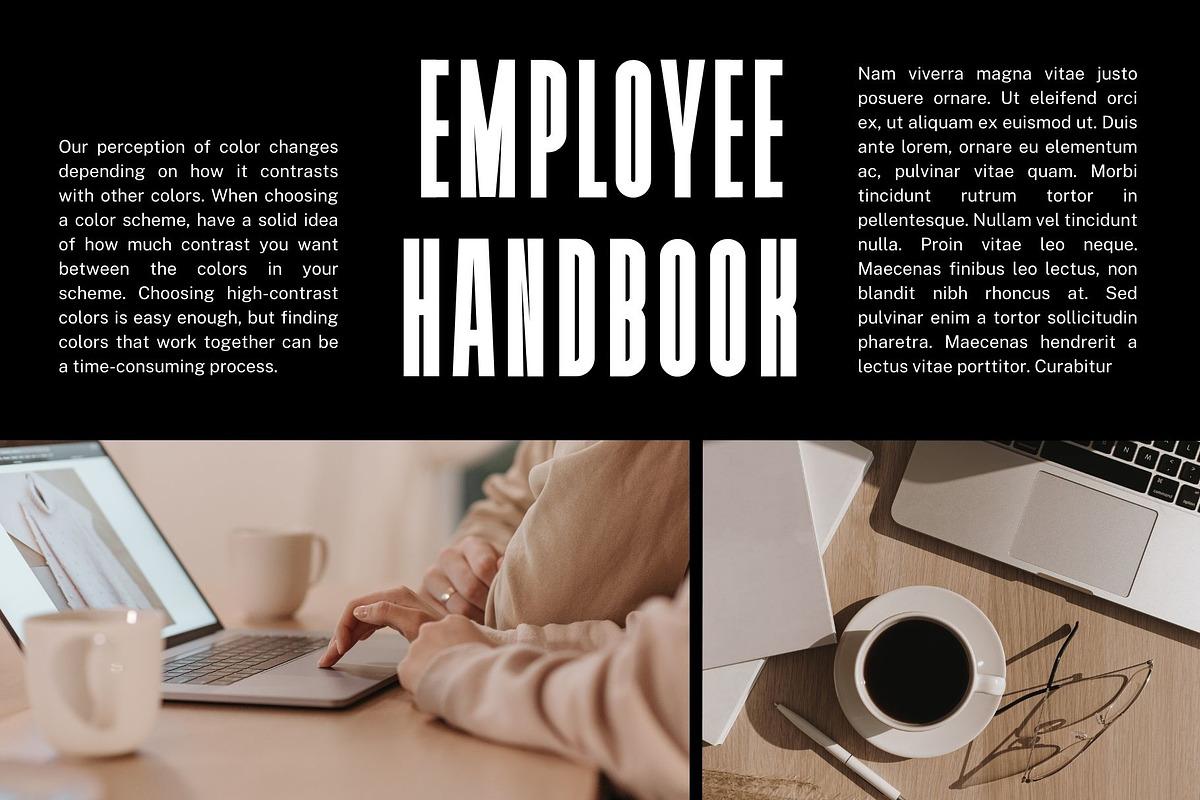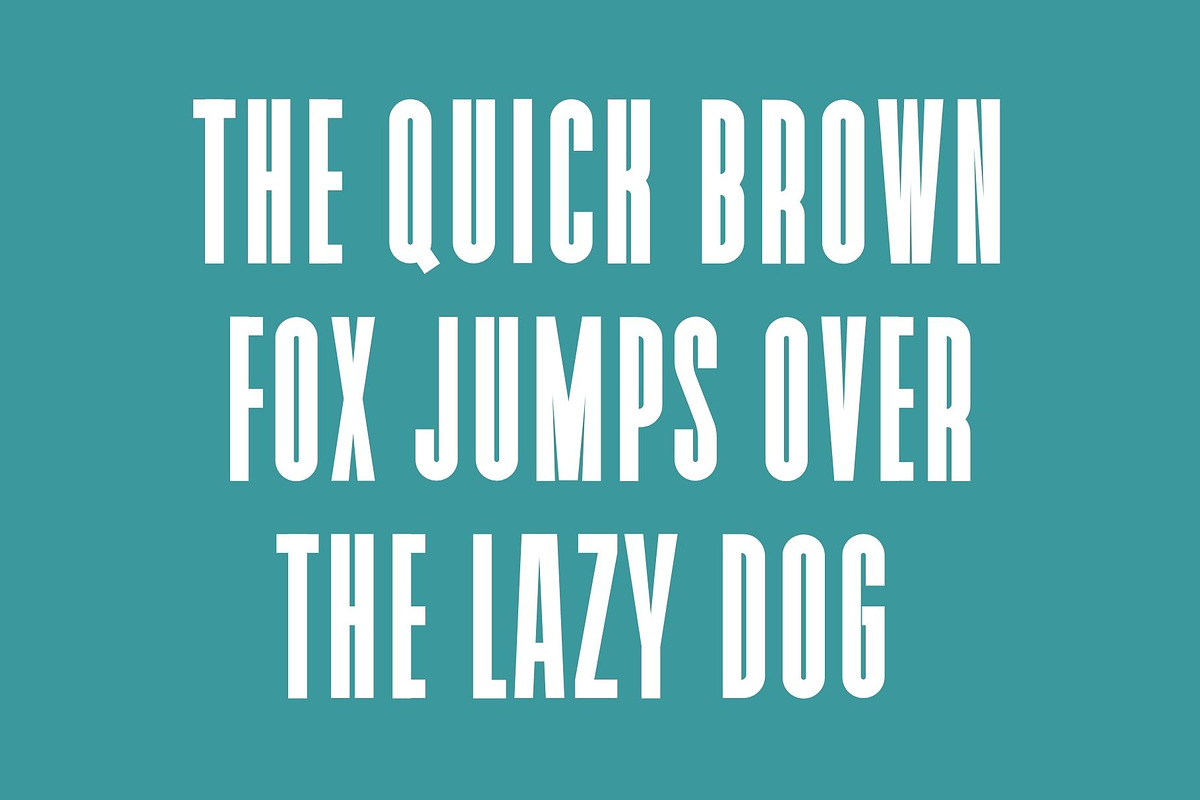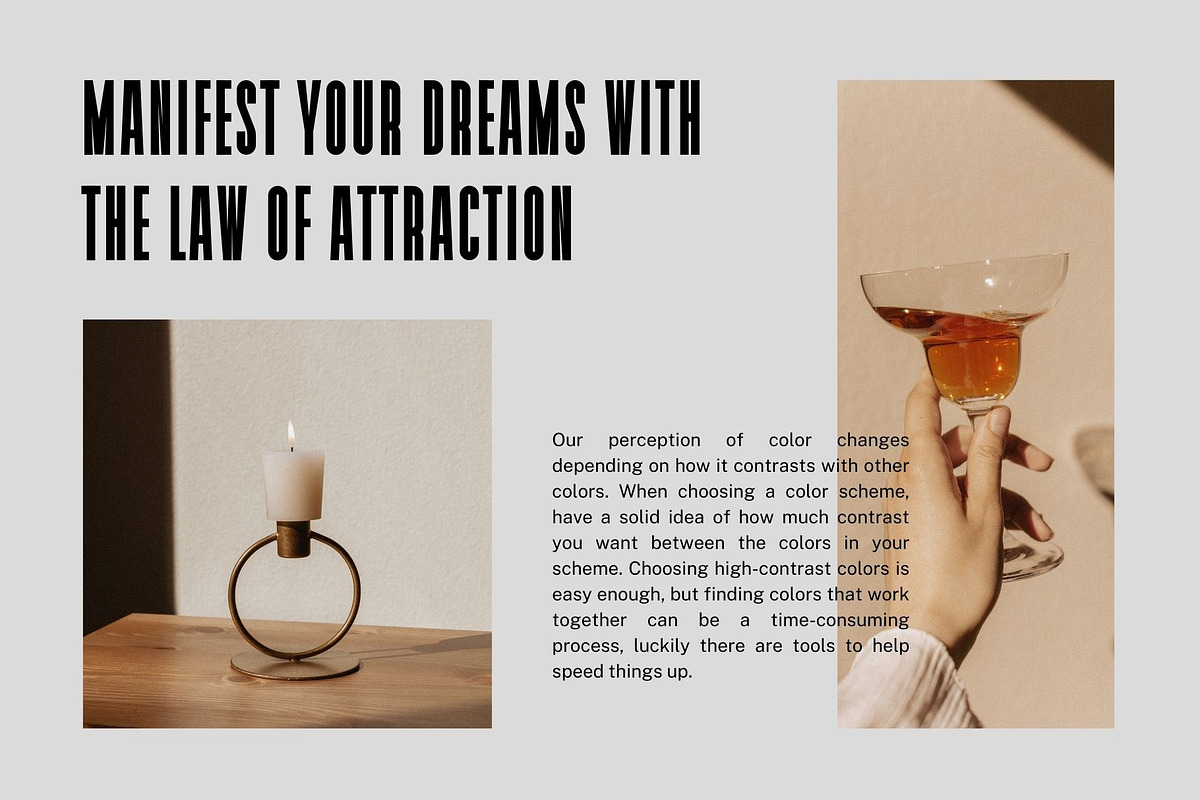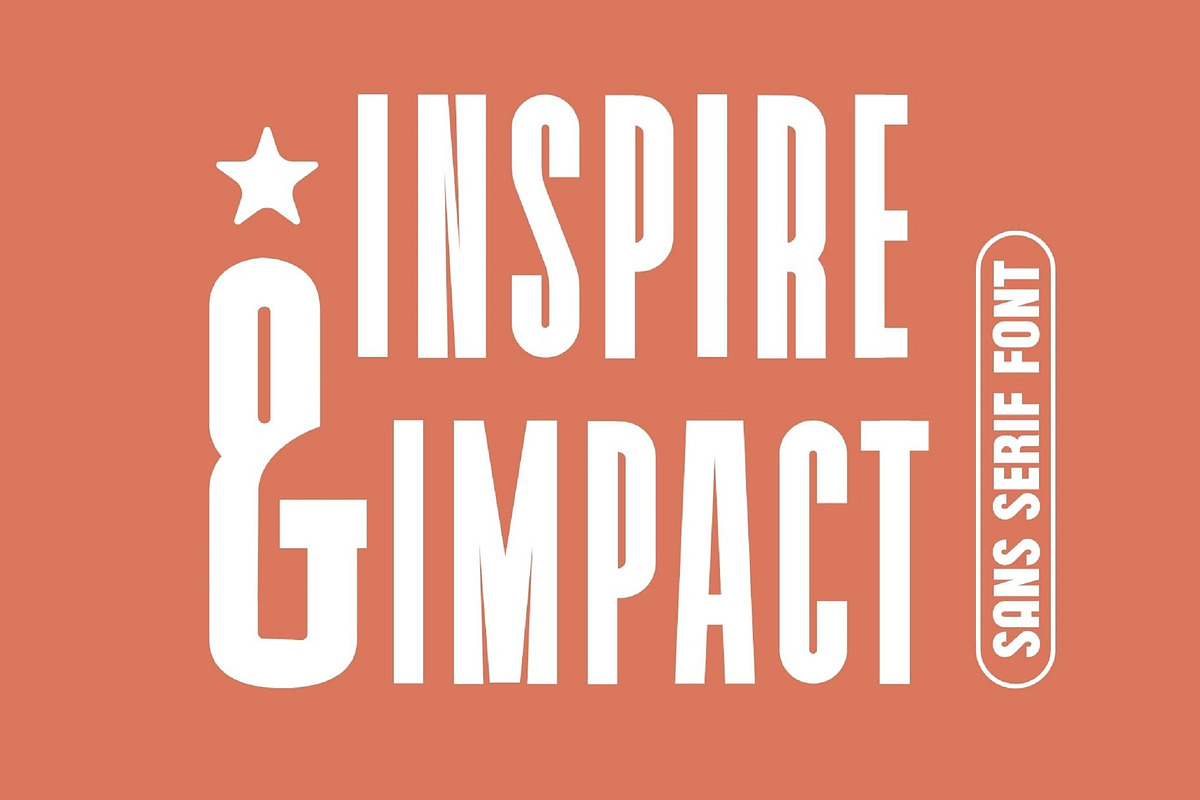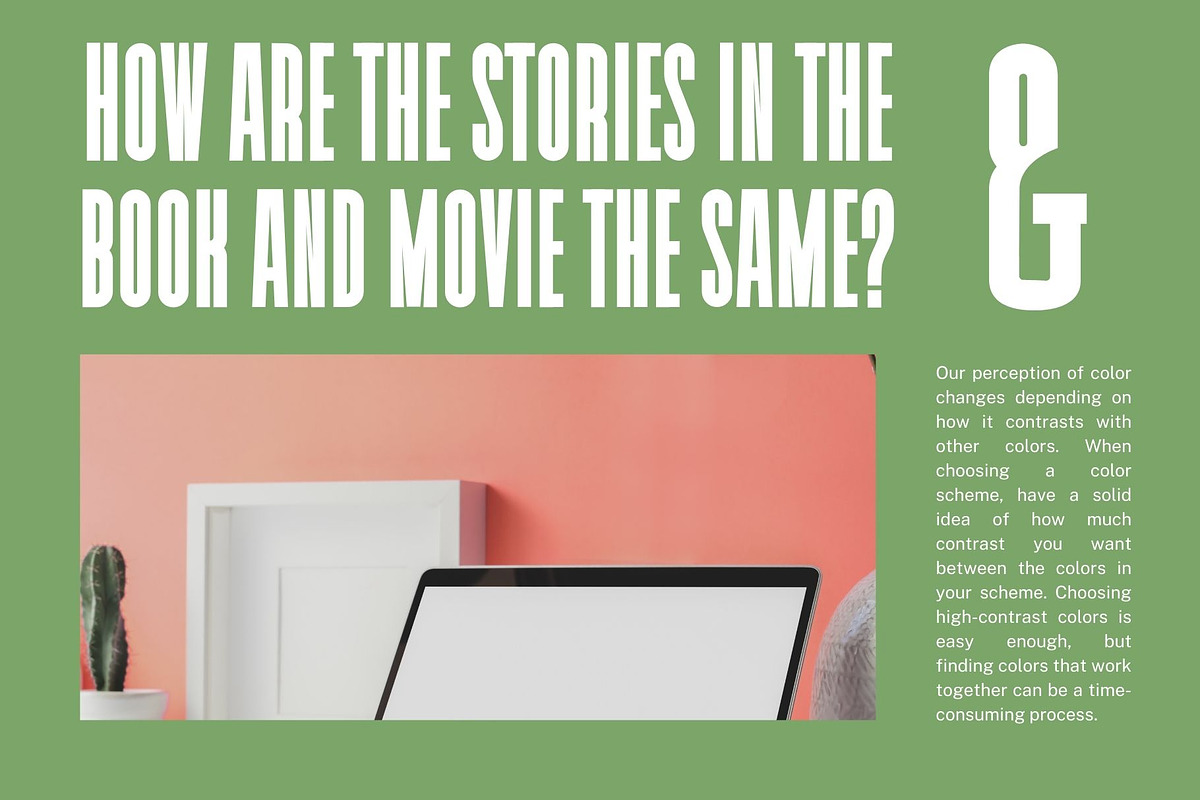
Inspire Impact Sans Serif Font
Reduced Clarity Sans Serif Font inspired by the famous minimalist logo perfect for the purposes of designing templates, brochures, videos, advertising branding, logos, invitation, layout design, elegant crafting, beauty design and other